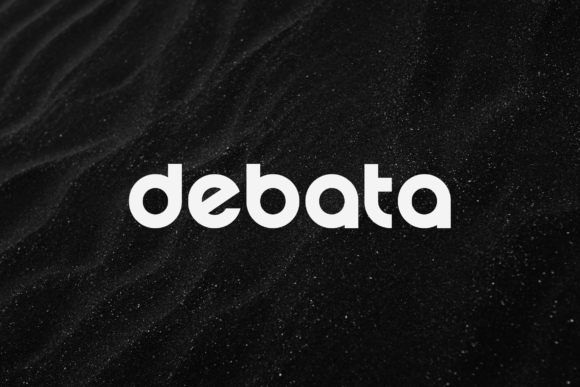
The Power of Simple Design: Debata Font
You’ve spent hours pouring over a design project, tweaking every detail to get it just right. The colors are perfect, the composition is balanced, but something’s still missing. That’s when you remember: typography is key. A well-chosen font can elevate your design from good to great. Enter Debata Font, a modern sans serif font that’s designed to bring a professional touch to any project.
With its sleek lines, consistent weight, and clean geometry, Debata Font is the perfect choice for designers who value simplicity and functionality. Whether you’re working on a logo, brochure, or website, Debata Font brings a sense of sophistication and style to any design. Its versatility makes it a valuable addition to any designer’s toolkit, and its ease of use means you can focus on the creative aspects of your project.
Debata Font Key Features
- Font Family: Debata is a sans-serif font family designed for clear and concise communication.
- Character Set: Supports a wide range of languages, including Latin, Cyrillic, and Greek alphabets, making it suitable for international use.
- Unique Characteristics: Debata’s distinctive design features a clean and modern aesthetic, with subtle rounded edges and a highly legible x-height, making it ideal for body text and headlines.
Debata Font Review
Overall, I think the Debata Font is a solid addition to any design project, but it’s not without its quirks. Here are some things that I think work well: ✨
- Unique aesthetic: Debata Font has a distinct look that can add some visual interest to a design. It’s great for creating a bold statement or highlighting important information.
- Good for body text: While it’s not the most readable font, it does work well for body text, especially at larger sizes.
- Flexible: Debata Font comes in a range of weights and styles, making it easy to find the right version to match your design.
- Readability issues: At smaller sizes, Debata Font can be difficult to read, especially for those with vision impairments.
- Limited support: Some devices or software may not support the font, which can cause issues with design consistency.
- Overuse: Debata Font is a bit too bold for everyday use, so be careful not to overdo it.
Overall, I’d say the Debata Font is a great choice for specific projects where its unique aesthetic can shine. Just be aware of its limitations and use it thoughtfully to avoid any potential issues.
Use Debata font for professional and modern designs, such as business cards, resumes, and presentations. Avoid using Debata font for casual or creative projects, as it may come across as too formal.
Debata font is commonly used in:
- Business presentations
- Resumes and CVs
- Infographics and data visualizations